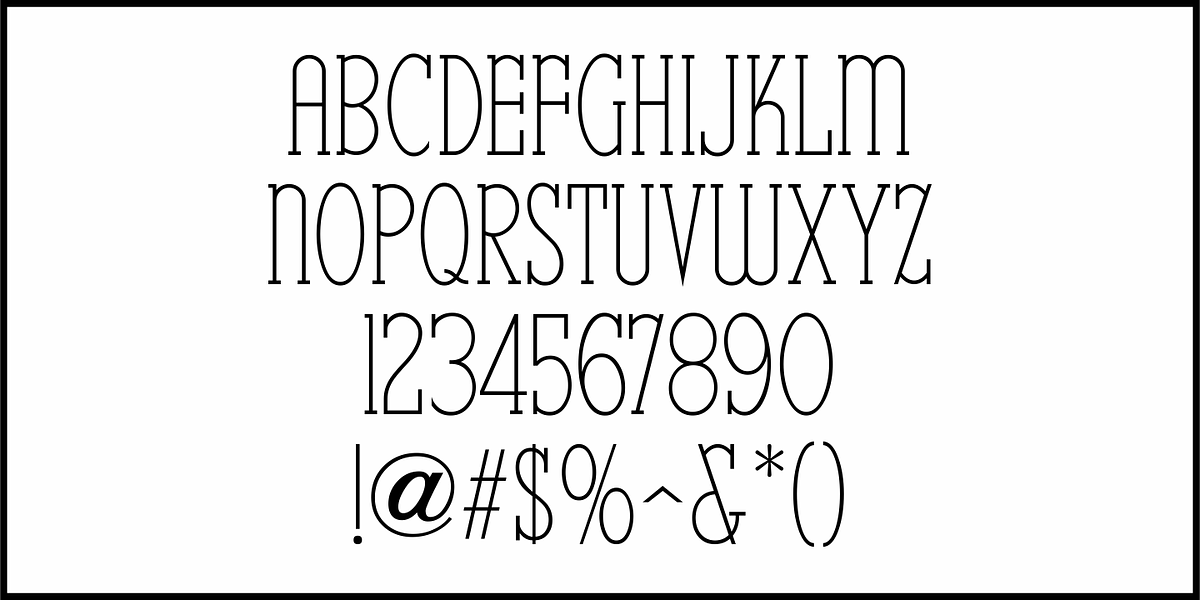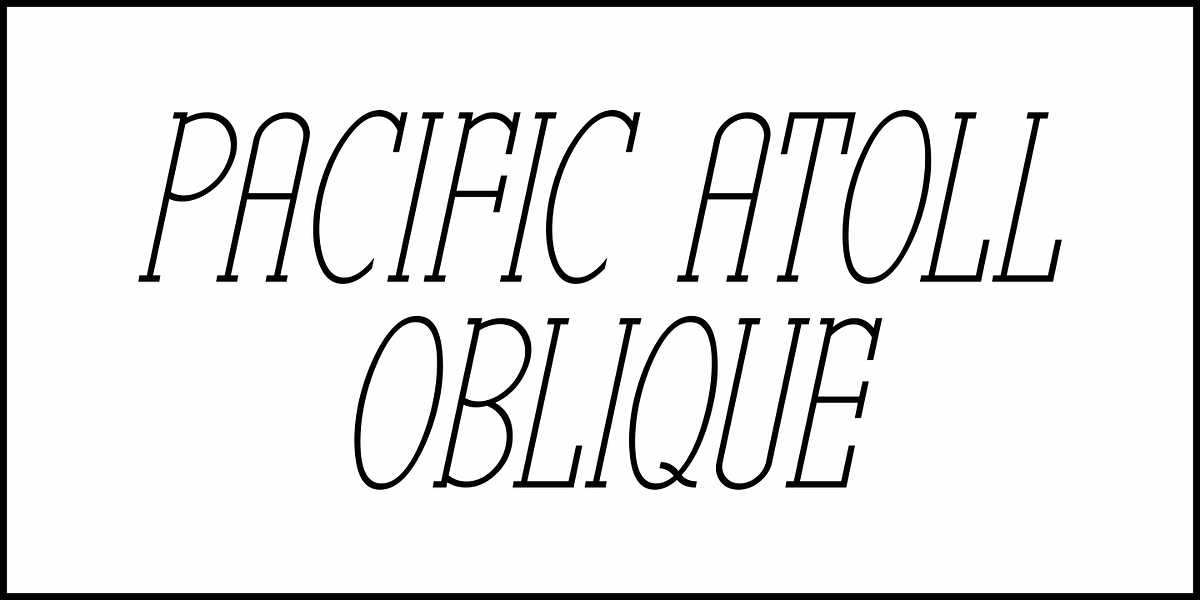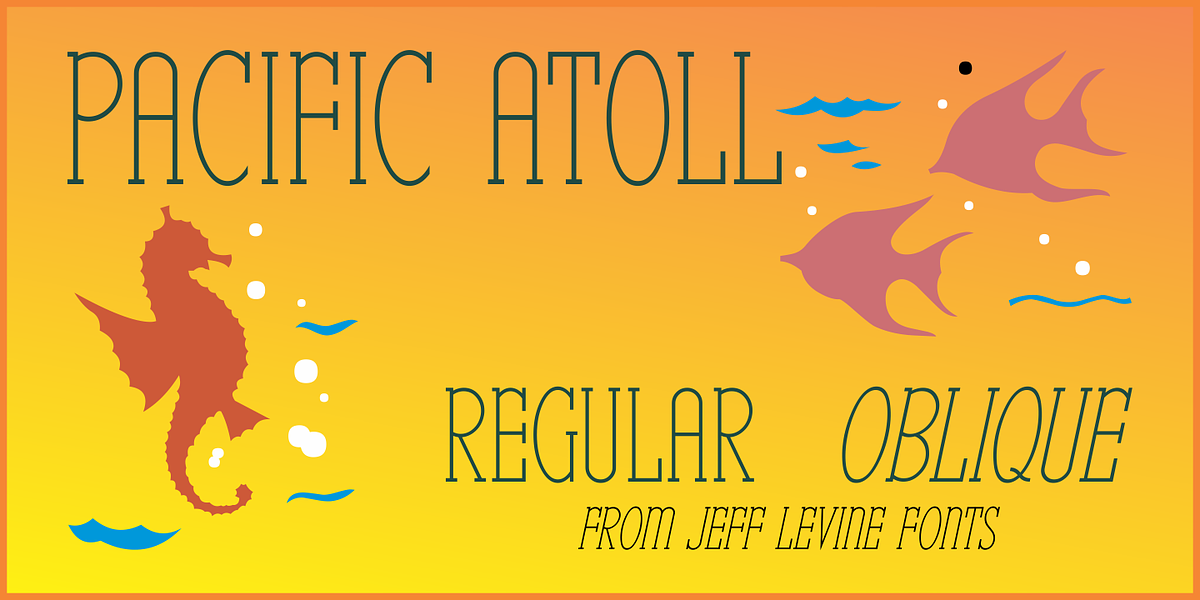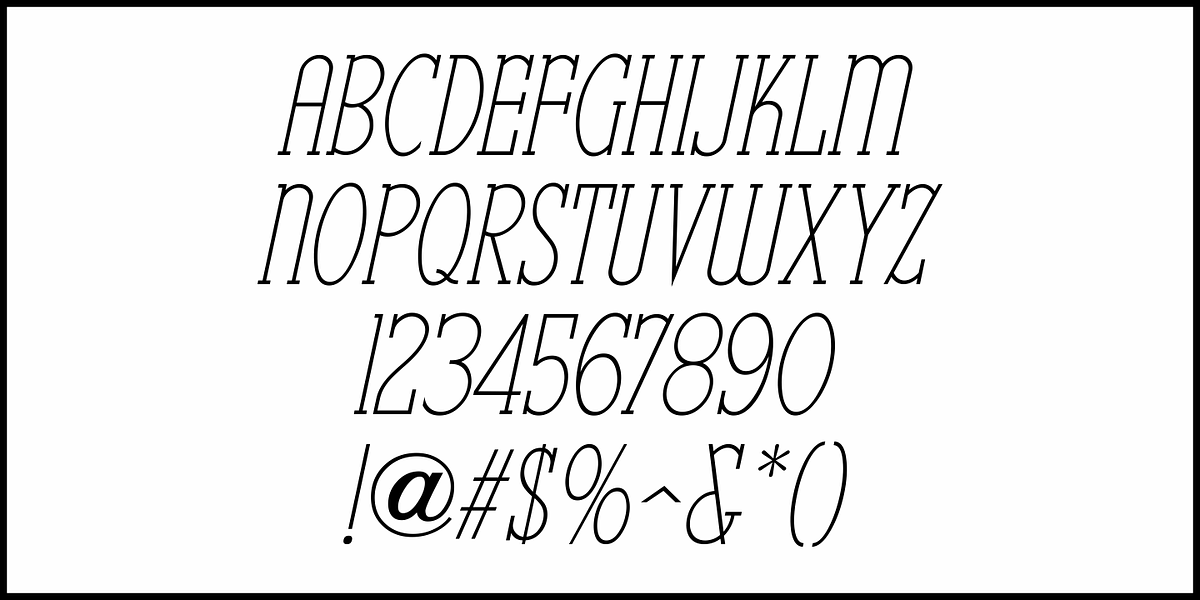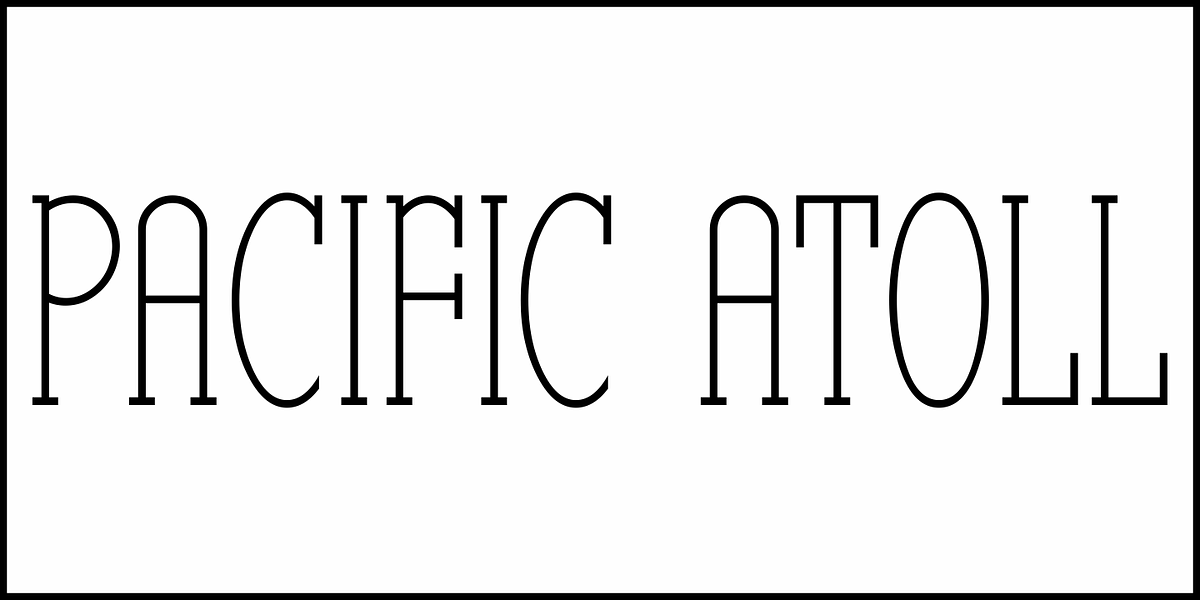
Pacific Atoll JNL
Pacific Atoll JNL is a stylized slab serif type design based on the movie title lettering for the 1942 wartime film “Pacific Rendezvous”, and is available in both regular and oblique versions.